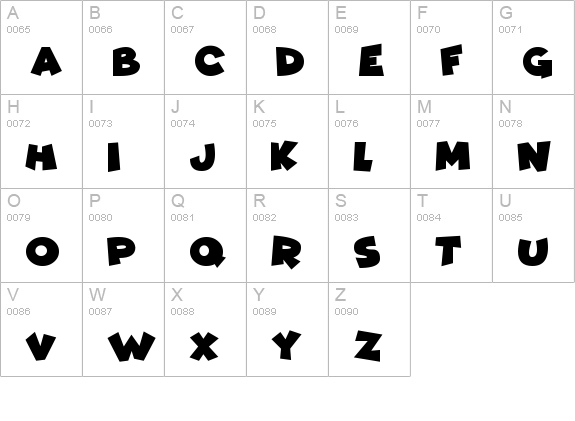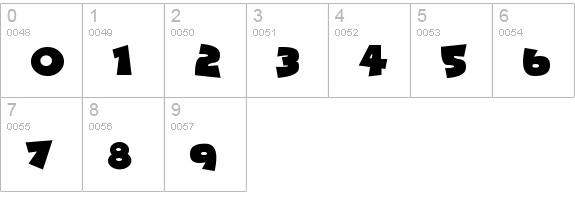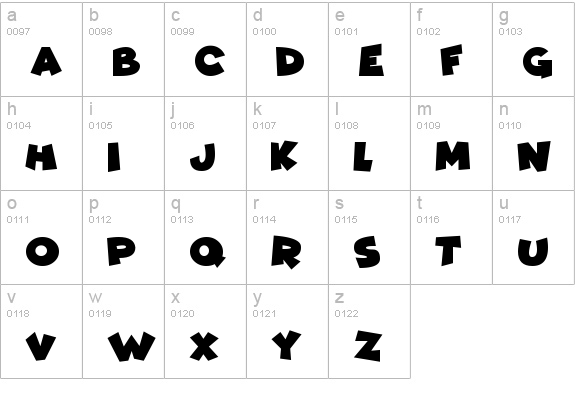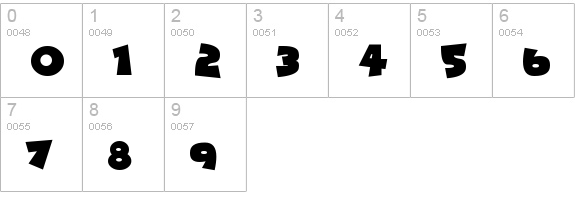
Comic Kings Font Details
Comic Kings is a donationware font in the Fancy > Comic category, designed by Darrell Flood. It has been downloaded 119 times and is available for Windows, Mac and Linux.
Comic Kings font is a playful and whimsical typeface that is perfect for adding a touch of fun to any design project. With its bold and energetic characters, Comic Kings is sure to make your text stand out and capture the attention of your audience.